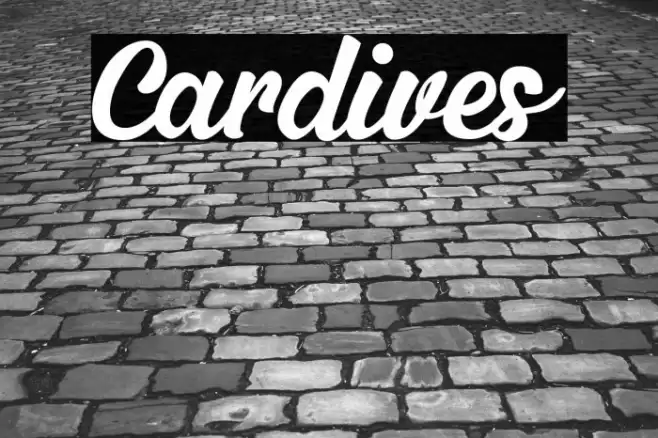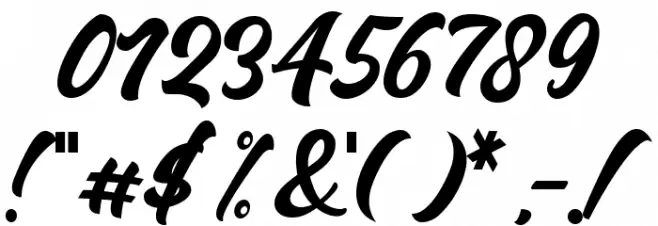
Cardives Font
Cardives Description
This font features a bold, cursive style with a flowing, handwritten appearance. The characters are closely connected, creating a seamless and elegant look. The uppercase letters are slightly larger and more pronounced, while the lowercase letters maintain a consistent flow. The numbers and special characters are designed to match the overall cursive theme, ensuring a cohesive appearance across all text. The font's boldness adds a strong visual impact, making it suitable for attention-grabbing designs.
A bold, cursive font with a flowing, handwritten style from Regular fonts.
- Font: Cardives
- Proposed Projects: Ideal for wedding invitations, greeting cards, logos, and branding materials that require a personal touch.
- Character Spacing: Tight
- Use Case: Logos, Headlines, Invitations